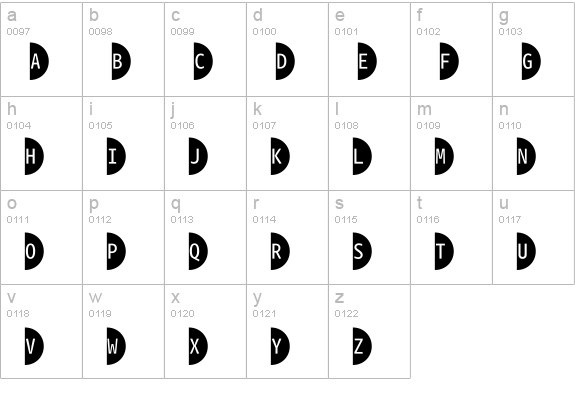
WhitneyIndexBlack-RoundLt2 font is a visually striking typeface that exudes elegance and sophistication. With its bold and rounded letterforms, this font commands attention and leaves a lasting impression. Designed with the utmost precision, WhitneyIndexBlack-RoundLt2 is the perfect choice for projects that require a touch of modernity and finesse. Whether it's for branding, packaging, editorial designs, or any creative endeavor, this font effortlessly adds a unique flair to any composition. What sets WhitneyIndexBlack-RoundLt2 font apart is its versatility. It seamlessly blends into various design styles, making it a valuable asset for both professional designers and enthusiasts. This font is well-suited for both digital and print applications, ensuring that your message is delivered with clarity and impact. And the best part? WhitneyIndexBlack-RoundLt2 font is available for free! That's right, you can freely download this remarkable font at FontsMarket.com. This means you can enhance your projects with this exceptional typeface without any financial burden. So don't miss out on the opportunity to elevate your designs with WhitneyIndexBlack-RoundLt2 font. Take advantage of its captivating aesthetic and download it for free at FontsMarket.com today!